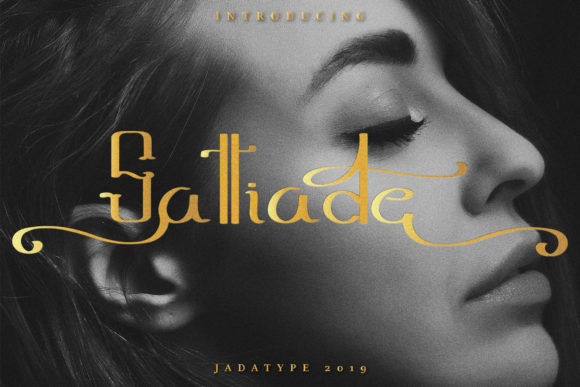
Dive into the world of Sattiade, a decorative font family that exudes charm and boldness. Each letter, meticulously crafted by jadatype, bursts with character and personality, promising to make your designs stand out from the ordinary.
Sattiade is not just a font; it's an experience. Its playful curves and sharp edges dance together in perfect harmony, creating a visual symphony that captivates the eyes. The bold strokes command attention, while the delicate details add a touch of whimsical charm.
With Sattiade, your designs will radiate confidence and creativity. Whether you're crafting logos, posters, invitations, or any other design project, this font family will elevate your work to new heights. Its versatility knows no bounds, adapting seamlessly to a wide range of design styles, from vintage and retro to modern and contemporary.
Sattiade is more than just a collection of letters; it's a gateway to a world of limitless possibilities. Its unique charm will ignite your imagination and inspire you to create designs that resonate with your audience. Unleash your creativity and let Sattiade be your guide as you explore the depths of visual storytelling.